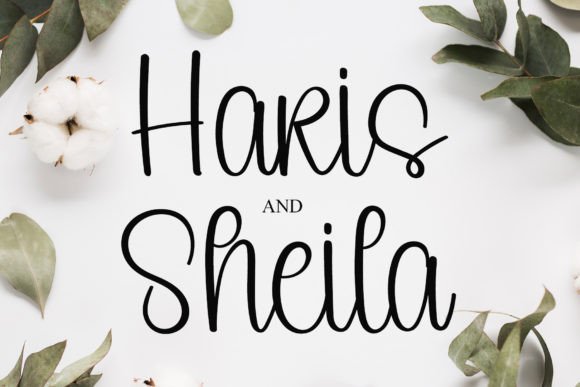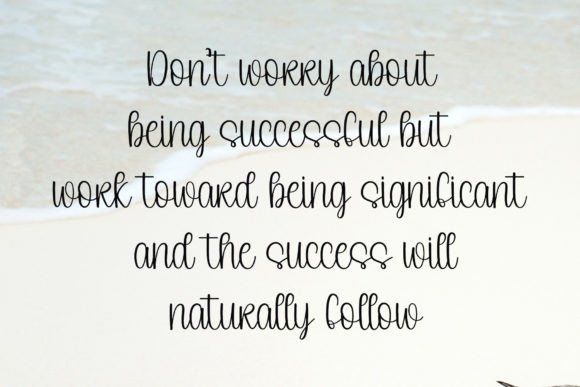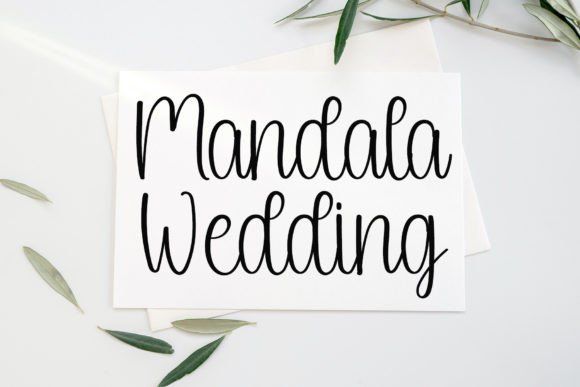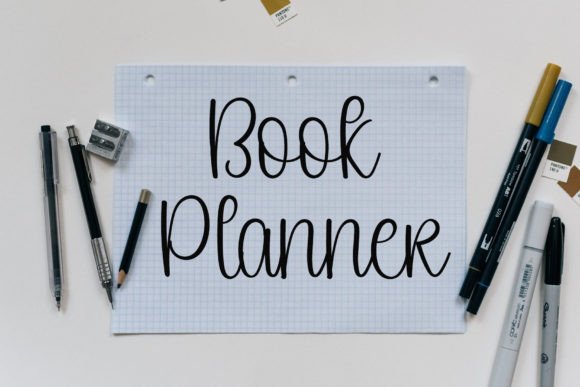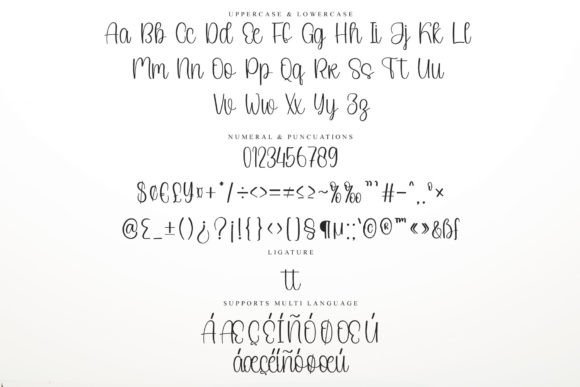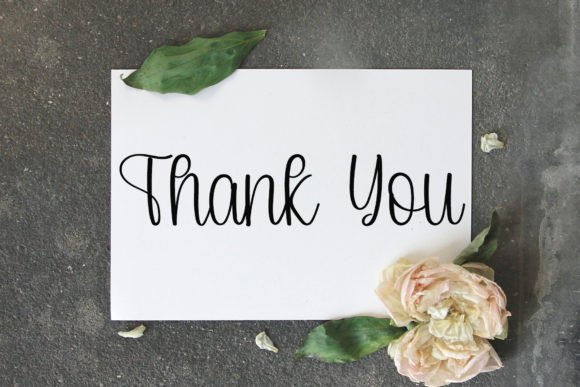
The Perfect Handwritten Touch: A Deep Dive into Cruiser Font
Cruiser is a stylish and dainty script font that’s perfect for adding a touch of elegance to any project. In this article, I’ll share my honest review of Cruiser Font, provide a practical guide on how to use it, and explore some similar fonts you might love.
- ✨ Beautifully crafted letters with a delicate, handwritten feel
- ✅ Extensive OpenType features, including glyphs and stylistic alternates
- ✅ Perfect for logos, branding projects, labels, photography, watermarks, and more
- ⚠️ Some letters may require manual kerning for optimal spacing
- ⚠️ Limited availability of uppercase letters (but that’s part of its charm!)
The Story Behind Cruiser Font
Cruiser Font was designed with love and care by a talented type designer who’s passionate about creating beautiful, handmade fonts. The story goes that the designer was inspired by vintage cruise posters and wanted to create a font that captured the essence of those bygone eras. The result is a font that’s both elegant and playful, perfect for adding a touch of sophistication to any project.
| Font Name | Cruiser Font |
| Author | YanStudio |
Q: Is Cruiser Font suitable for body text?
A: While Cruiser Font is beautiful, it’s best suited for headings, titles, and short paragraphs. For longer body text, you may want to choose a more legible font.